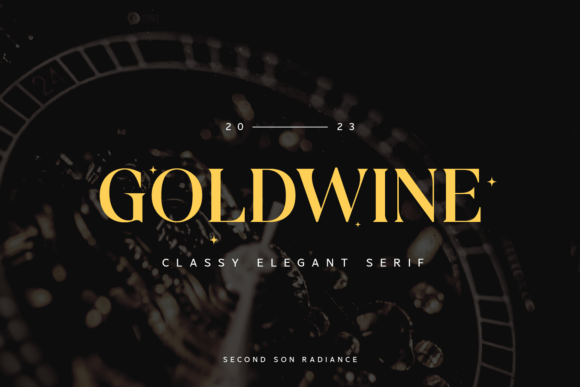
Introducing Goldwine Font: The Epitome of Sophistication and Elegance
In the realm of typography, few fonts have managed to capture the essence of luxury, sophistication, and charm as effectively as Goldwine. This exquisite serif font has been making waves in the design community, and for good reason. With its unique blend of classic elegance and modern flair, Goldwine is the perfect choice for designers looking to elevate their projects to new heights.
The Characteristics of Goldwine Font
So, what sets Goldwine apart from other fonts? The answer lies in its meticulously crafted design. Goldwine boasts a range of characteristics that make it an ideal choice for a wide range of design applications.
- Sophisticated and Charming: Goldwine exudes a sense of refinement and poise, making it perfect for projects that require a touch of elegance.
- Serif Font: The subtle serifs on Goldwine add a level of sophistication and classic charm, setting it apart from sans-serif fonts.
- Fashionable Touch: Goldwine’s unique design elements give it a distinctly fashionable edge, making it a great choice for fashion brands and designers.
Design Applications for Goldwine Font
One of the standout features of Goldwine is its versatility. This font can be used in a wide range of design applications, including:
- Logos and Branding: Goldwine’s sophisticated and charming nature makes it an excellent choice for logos and branding projects.
- Modern Advertising Design: The font’s fashionable touch and classic elegance make it perfect for modern advertising designs.
- Holiday and Traveling Designs: Goldwine’s luxurious feel makes it an excellent choice for holiday and traveling designs, such as brochures, posters, and advertisements.
- Fashion and Music: The font’s fashionable edge makes it a natural fit for fashion and music-related projects.
- Animation or Movie Title: Goldwine’s unique design elements make it an excellent choice for animation or movie titles.
- Poster Quote: The font’s elegant and sophisticated nature makes it perfect for poster quotes.
- Book/Fantasy Novel Cover Title: Goldwine’s classic charm and luxurious feel make it an excellent choice for book and fantasy novel cover titles.
- Editorial Design: The font’s versatility and elegance make it suitable for editorial designs, such as magazine and newspaper layouts.
- Website/Blog: Goldwine can be used to create stunning website and blog designs that exude sophistication and elegance.
- Card: The font’s luxurious feel makes it perfect for card designs, such as business cards, greeting cards, and invitations.
Why Choose Goldwine Font?
With so many fonts available, why choose Goldwine? Here are just a few reasons why Goldwine stands out from the crowd:
- Unique Design: Goldwine’s unique design elements set it apart from other fonts, making it a great choice for designers looking to create something truly special.
- Versatility: The font’s versatility makes it suitable for a wide range of design applications.
- Elegance and Sophistication: Goldwine exudes elegance and sophistication, making it perfect for projects that require a touch of luxury.
- Fashionable Edge: The font’s fashionable edge makes it a great choice for fashion brands and designers.
Tips for Using Goldwine Font Effectively
To get the most out of Goldwine, here are a few tips to keep in mind:
- Use it Sparingly: While Goldwine is a stunning font, it’s best used sparingly to avoid overwhelming the design.
- Pair it with Other Fonts: Goldwine can be paired with other fonts to create a unique and visually appealing design.
- Experiment with Different Sizes: The font’s elegant and sophisticated nature makes it suitable for a range of sizes, from large headings to smaller body text.
In conclusion, Goldwine is a sophisticated, charming serif font with a fashionable touch. Its unique design elements, versatility, and elegance make it perfect for a wide range of design applications. Whether you’re a designer looking to elevate your projects or a brand seeking to create a luxurious image, Goldwine is an excellent choice. With its ability to evoke a sense of refinement and poise, Goldwine is sure to become a staple in any designer’s font collection.